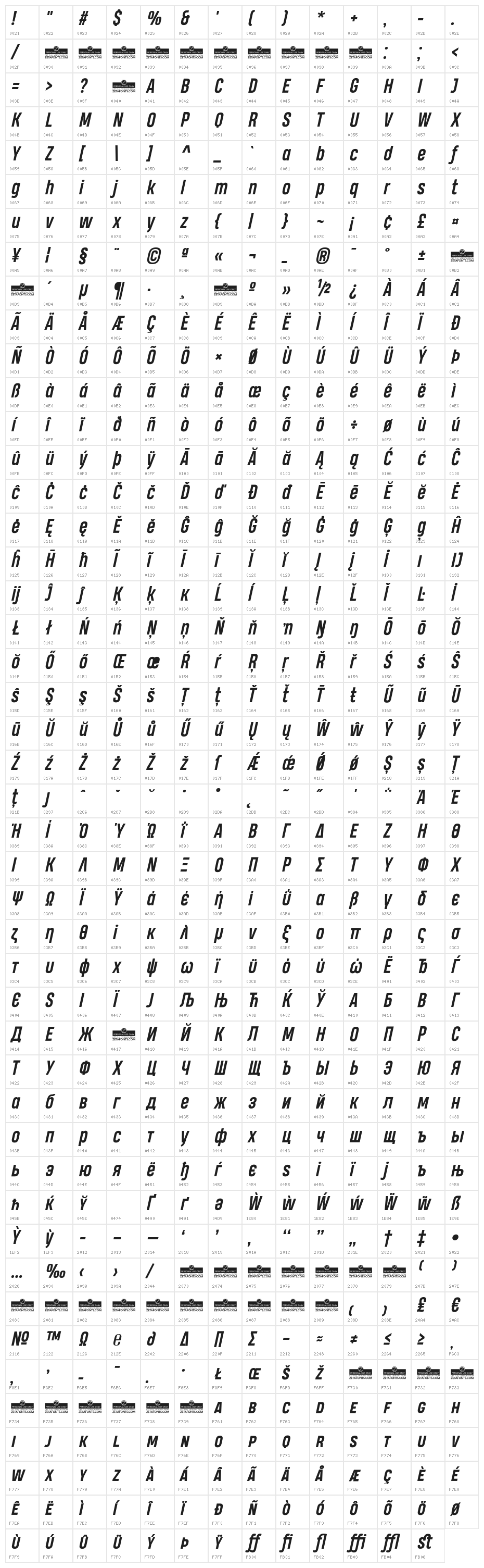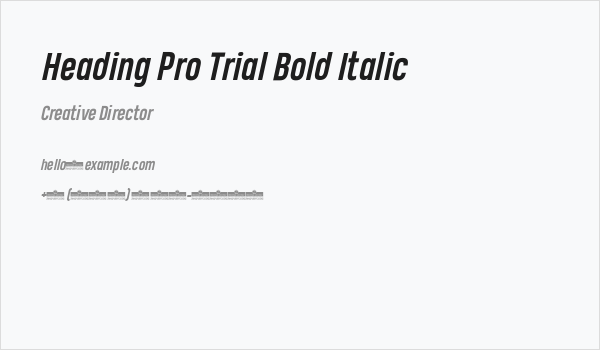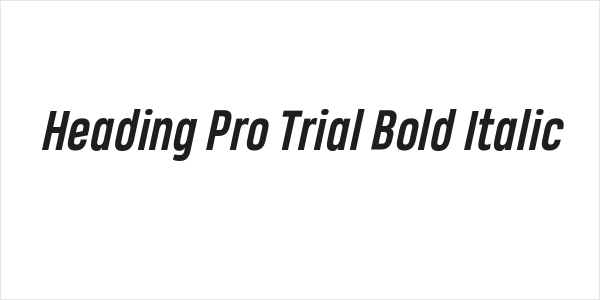
Heading Pro Trial Bold Italic Font
Heading Pro Trial Bold Italic Description
This font exhibits a bold and italicized style, characterized by its strong and assertive presence. The letters are slightly condensed, giving it a compact appearance while maintaining readability. The strokes are consistent in thickness, providing a uniform look across all characters. The italic slant adds a dynamic and modern touch, making it suitable for attention-grabbing headlines. The uppercase and lowercase letters are well-proportioned, and the numerals are clear and distinct. Special characters are included, enhancing its versatility for various design needs.
| Proposed Projects | Ideal for headlines, posters, branding materials, and advertising campaigns. |